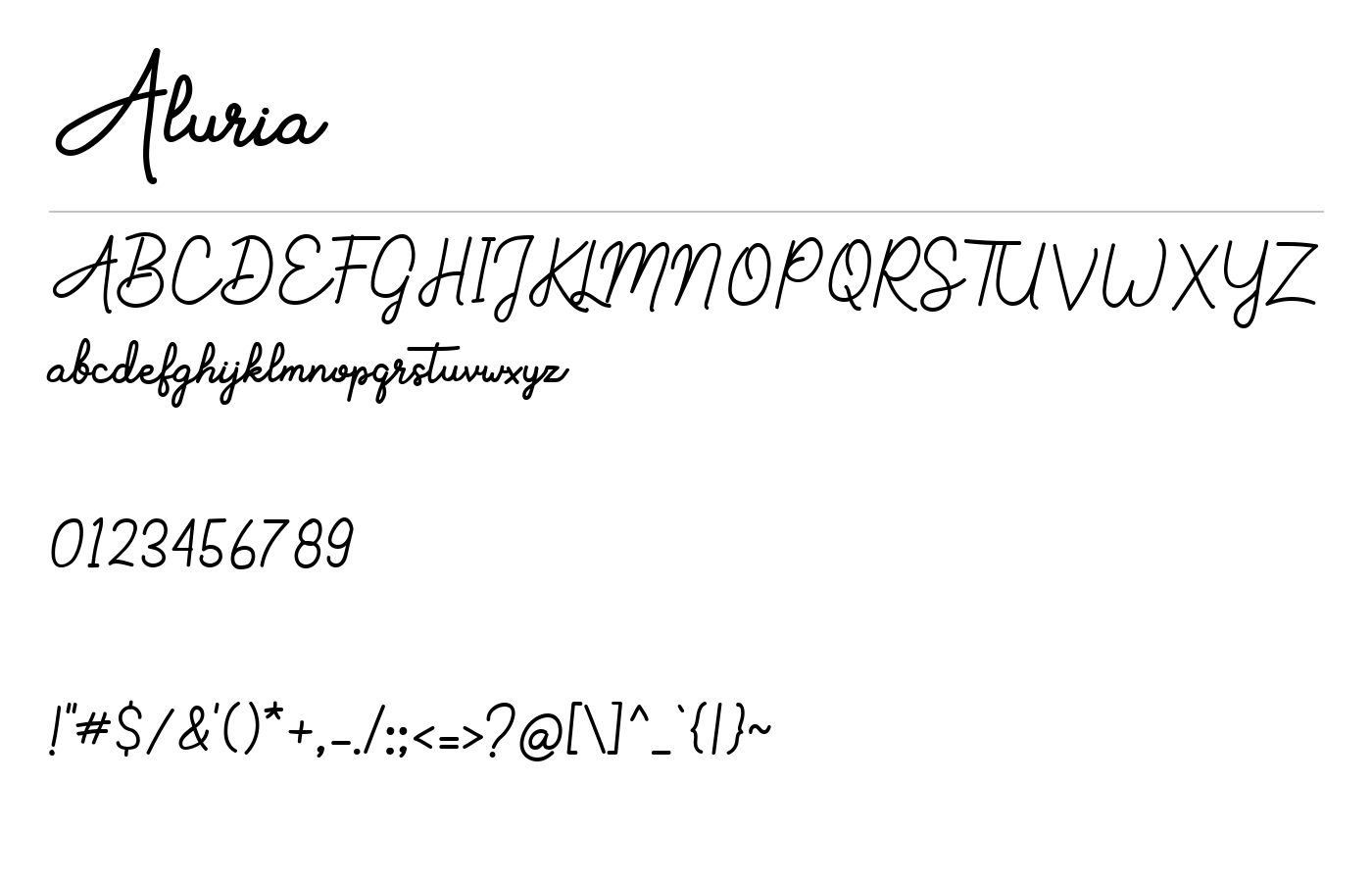
Aluria is a delicate, handwritten script font with a light weight and elegant, flowing letterforms that convey a personal and refined touch. Its slender strokes and subtle slant create a stylish yet approachable feel, making it perfect for invitations, branding, and any design seeking a graceful, sophisticated look. This font works well in headlines and logos where a warm, handcrafted aesthetic enhances the visual appeal.
Aluria Font
About Aluria Font
| Designer | jozgandoz 2018 |